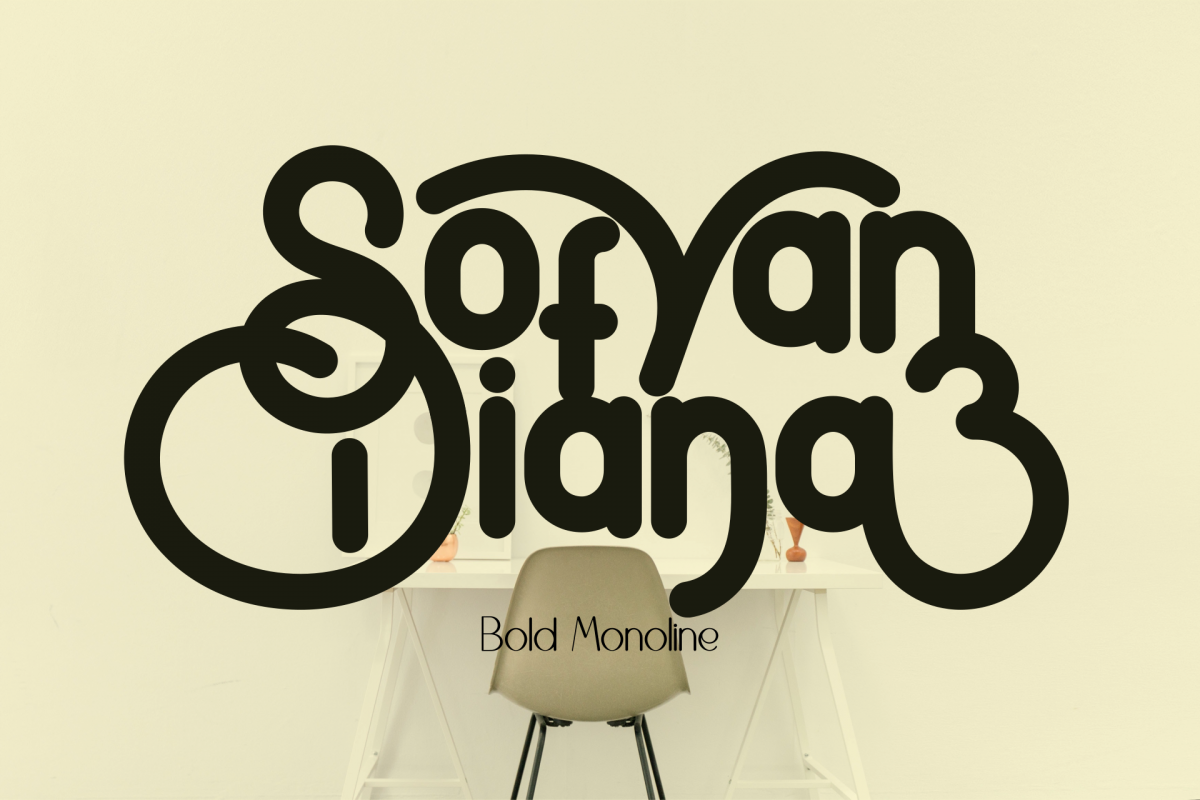
SofyanDiana Bold Monoline
SofyanDiana
SofyanDiana is a beautiful bold monoline font. explore it's charming and uniqueness for your amazing design. enjoy it's beautiful and various alternates character to make your awesome design